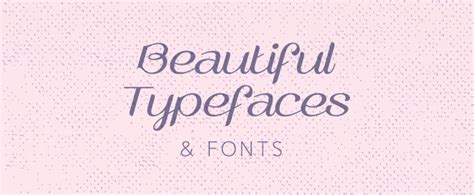
Script Fonts Examples: Beautiful Handwritten Typefaces
Readers, have you ever been captivated by the elegance and charm of handwritten fonts? They add a personal touch and evoke a sense of authenticity, making them ideal for projects that require a touch of warmth and character. But with so many script fonts available, how do you choose the perfect one for your design needs?
From classic calligraphy to modern brush scripts, the world of script fonts is vast and inspiring. I've spent countless hours analyzing and experimenting with these beautiful typefaces, and I'm excited to share my insights with you.
The Allure of Script Fonts: Why They Captivate Us
Script fonts possess a unique charm that sets them apart from other typeface categories. Their fluid strokes and graceful curves mimic the natural flow of handwriting, evoking a sense of personality and artistry. Whether they're used for branding, invitations, or website designs, script fonts instantly add a touch of sophistication and elegance.
The History of Script Fonts: From Calligraphy to Digital Design
The history of script fonts can be traced back to the art of calligraphy, a practice that dates back centuries. From the elegant strokes of medieval manuscripts to the flowing script of the Renaissance, calligraphy has always played a significant role in shaping the visual language of writing.
With the advent of digital technology, calligraphic styles were adapted and digitized, creating a vast library of script fonts that are now readily available to designers. This digital revolution has democratized access to beautiful script fonts, empowering anyone with a computer to create visually stunning designs.
The Importance of Legibility in Script Fonts: Striking the Right Balance
While script fonts are known for their aesthetic appeal, it's crucial to consider their legibility. A well-designed script font should strike a balance between visual appeal and readability. If the letters are too cursive or intertwined, they can become difficult to decipher, especially in large blocks of text.
When selecting a script font, pay attention to the spacing between letters (kerning) and the overall flow of the typeface. Choose fonts that are easy to read, even when used in smaller sizes, to ensure your designs are both visually pleasing and accessible.
Exploring the Variety of Script Fonts: A Comprehensive Guide
The world of script fonts is incredibly diverse, encompassing a wide range of styles, from classic calligraphy to modern brush scripts. Each style has its own unique characteristics, making it essential to understand the nuances of different script font types.
Classic Calligraphy: Timeless Elegance and Refined Beauty
Classic calligraphy fonts are inspired by traditional penmanship techniques, often featuring elegant flourishes and carefully crafted strokes. These fonts exude a sense of sophistication and timeless beauty, making them ideal for projects that require a touch of formality.
Examples of classic calligraphy fonts include:
- Brush Script: This iconic script font is instantly recognizable for its elegant curves and smooth flowing strokes.
- Mistral: A versatile script font that strikes a balance between elegance and readability.
- Edwardian Script ITC: This font embodies the classic elegance of the Edwardian era, with its flowing script and ornate embellishments.
Modern Brush Script: A Contemporary Twist on Handwriting
Modern brush script fonts capture the free-flowing nature of brush pen calligraphy, often featuring bold strokes, dramatic angles, and a touch of imperfection. These fonts exude a sense of personality and dynamism, making them perfect for projects that require a modern and creative aesthetic.
Examples of modern brush script fonts include:
- Sacramento: This bold and expressive brush script font is known for its dramatic strokes and playful curves.
- Pacifico: A playful and casual brush script font with a charmingly whimsical feel.
- Amatic SC: A bold and expressive brush script font that adds a vintage touch to projects.
Handwritten Serif Fonts: A Blend of Classic Elegance and Modern Flair
Handwritten serif fonts combine the elegance of classic calligraphy with the structural integrity of serif typefaces. These fonts often feature subtle serifs that add a touch of sophistication, while their handwritten style maintains a sense of warmth and personality.
Examples of handwritten serif fonts include:
- Lobster Two: This charming handwritten serif font features a blend of playful curves and classic serifs.
- Dancing Script: A whimsical and elegant handwritten serif font that adds a touch of whimsy to designs.
- Great Vibes: This bold and expressive handwritten serif font is known for its dramatic strokes and charming flourishes.
Using Script Fonts Effectively: Tips for Design Success
Script fonts can be an incredibly powerful design tool, but it's important to use them thoughtfully and strategically to achieve the desired aesthetic. Here are some tips to help you make the most of script fonts in your projects.
Pairings That Pop: Combining Script Fonts with Other Typefaces
Script fonts can be paired with other typefaces to create visually striking and harmonious designs. By using complementary styles, you can enhance the overall impact of your typography.
When pairing script fonts, consider:
- Contrast: Combine a flowing script font with a sharp sans-serif or serif typeface for a balanced and visually interesting look.
- Consistency: If you're using multiple script fonts, ensure they have a cohesive style and weight to avoid creating a chaotic or cluttered appearance.
- Readability: When pairing a script font with another typeface, choose a combination that ensures readability for all text elements.
Playing with Size: Choosing the Right Font Sizes for Your Design
The size of your script font can significantly impact its visual impact. When choosing a font size for a script font, consider the context of your design, the length of the text, and the overall aesthetic you're aiming for.
Tips for selecting the right font size:
- Larger Sizes for Titles: Larger font sizes can create a dramatic and eye-catching effect for titles, headings, and branding elements.
- Smaller Sizes for Body Text: Consider using smaller font sizes for body text to ensure readability and prevent a cluttered appearance.
- Experimentation: Don't be afraid to experiment with different font sizes to see what works best for your design.
Adding Visual Interest: Utilizing Decorative Elements and Effects
Script fonts can be enhanced with decorative elements and effects to add visual interest and personality to your projects. Adding flourishes, drop shadows, or even a subtle texture can elevate the overall design.
Tips for adding visual interest:
- Flourishes and Swirls: Incorporate subtle flourishes or swirls at the beginning or end of your text to add a touch of elegance or whimsicality.
- Drop Shadows: Adding a subtle drop shadow to your script font can help it stand out against the background and create a sense of depth.
- Text Textures: Experiment with textures like watercolor or grunge to add a unique visual element to your script font.
FAQ: Script Fonts - Frequently Asked Questions
What are the best script fonts for branding?
When choosing a script font for branding, consider the overall tone and style of your brand. Classic calligraphy fonts are ideal for brands that want to exude sophistication and timeless elegance, while modern brush script fonts can add a touch of personality and dynamism.
How do I choose the right script font for a website design?
When selecting a script font for website design, prioritize readability. Choose fonts that are easy to read even at smaller sizes. It's also important to consider the overall aesthetic of your site and how the script font will complement other design elements.
Can I use script fonts for print design?
Absolutely! Script fonts can be incredibly effective in print design, particularly for invitations, brochures, and posters. Ensure the font you choose is high-resolution and suitable for printing to avoid pixelation or blurriness.